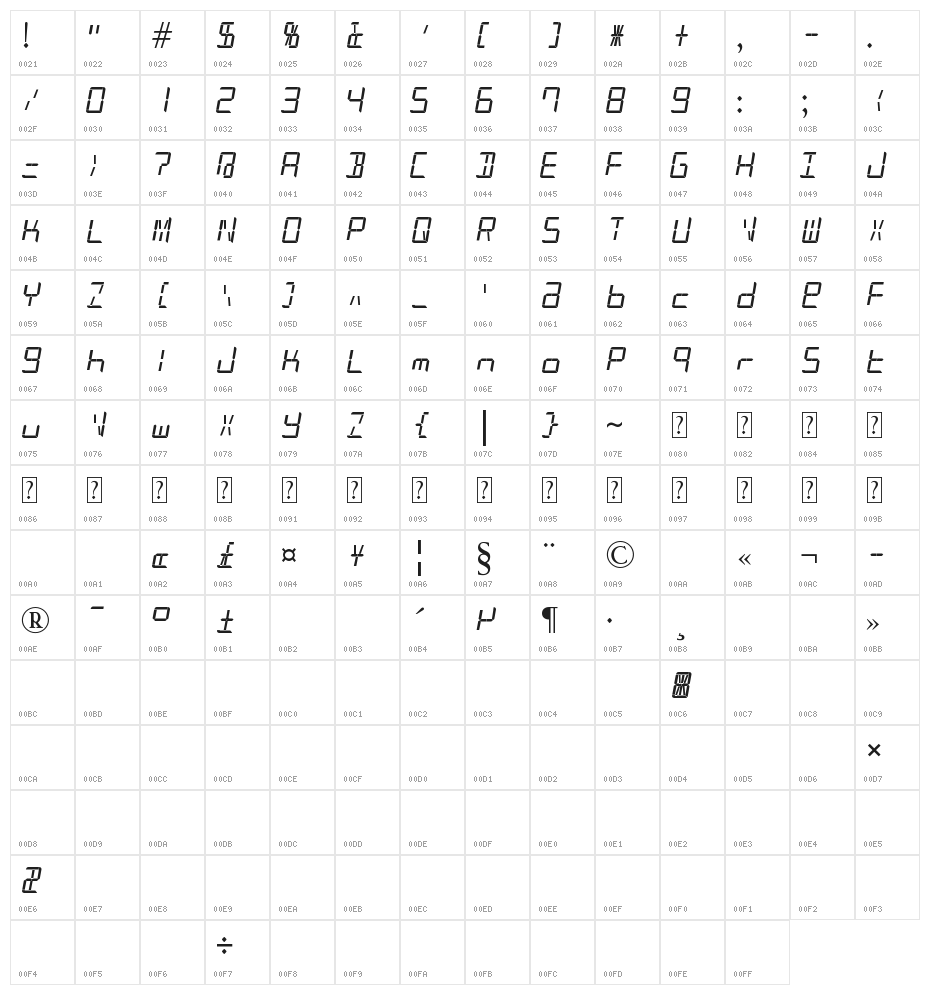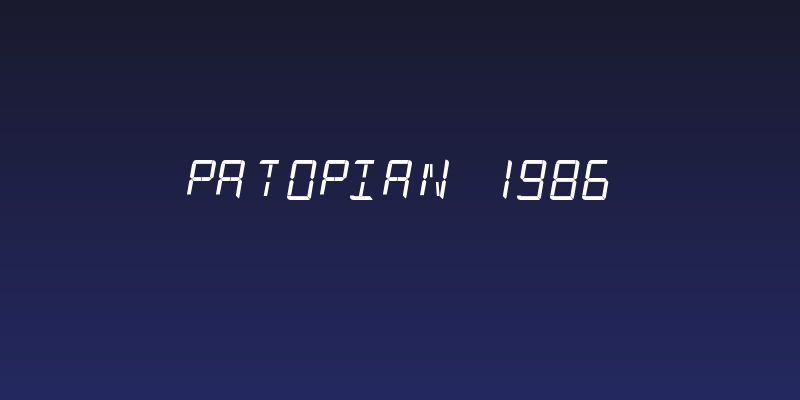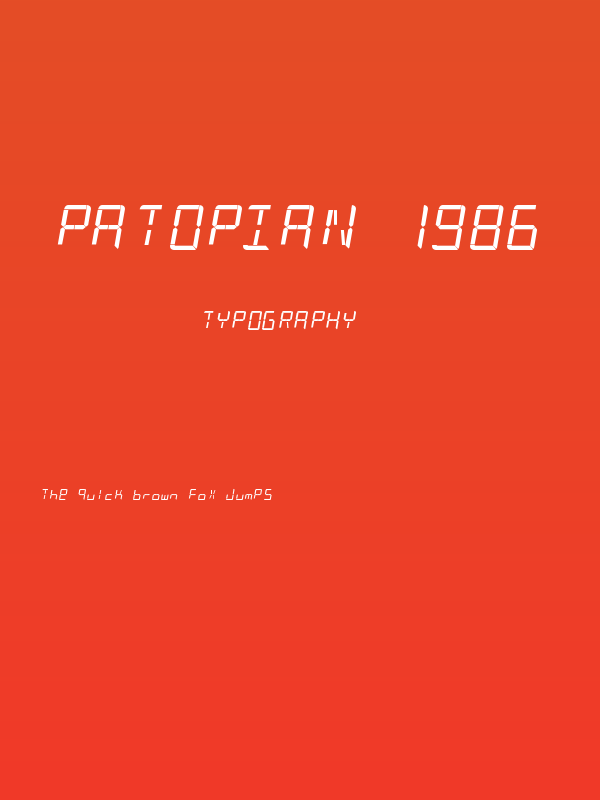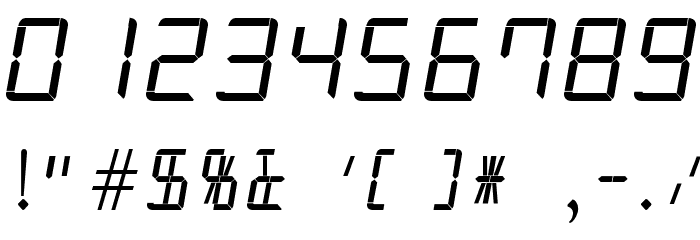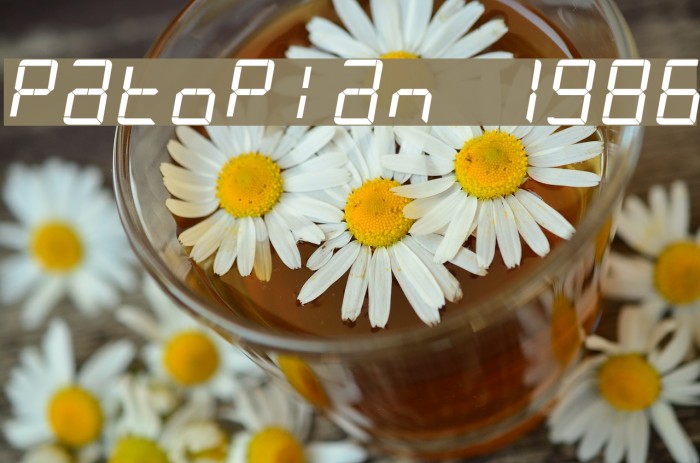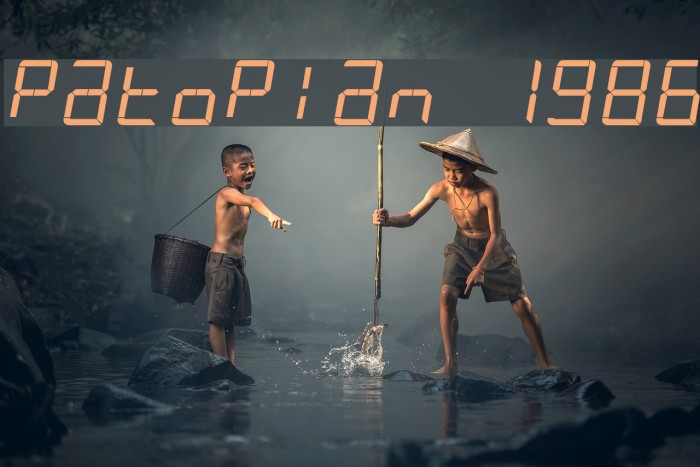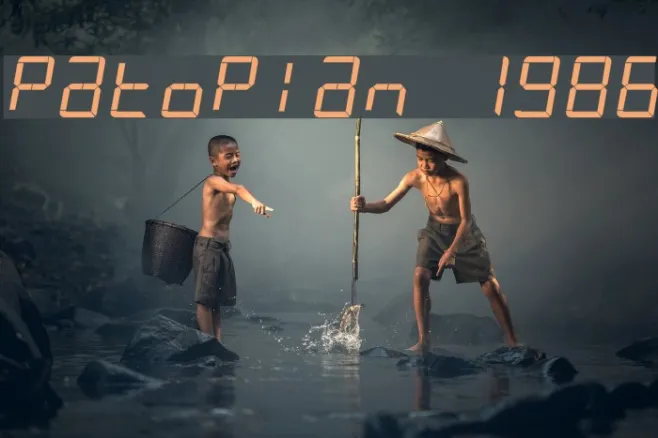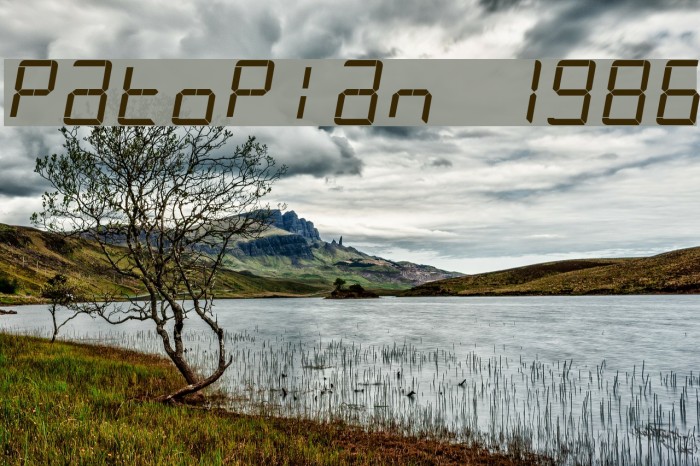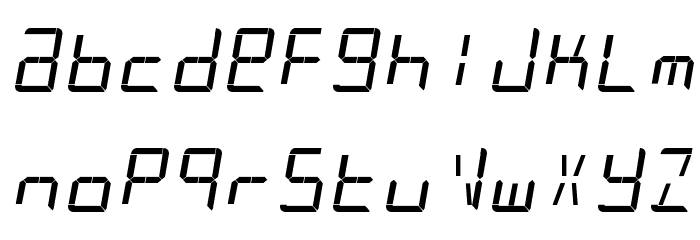
Patopian 1986 Font
Patopian 1986 Description
This font features a futuristic and digital aesthetic, reminiscent of early computer or digital clock displays. The characters are composed of segmented lines, giving them a geometric and mechanical appearance. Each letter and number is constructed with angular precision, creating a sense of uniformity and modernity. The uppercase and lowercase letters maintain a consistent style, with slight variations to distinguish them. The numerals are clear and easy to read, following the same segmented design. Special characters are included, matching the overall theme with their angular and segmented form. This font is ideal for projects that require a tech-savvy or retro-futuristic look.
| Use Case | Headlines, Logos, Digital displays |
| Proposed Projects | Ideal for tech-related branding, digital interfaces, retro-futuristic designs, and sci-fi themed projects. |